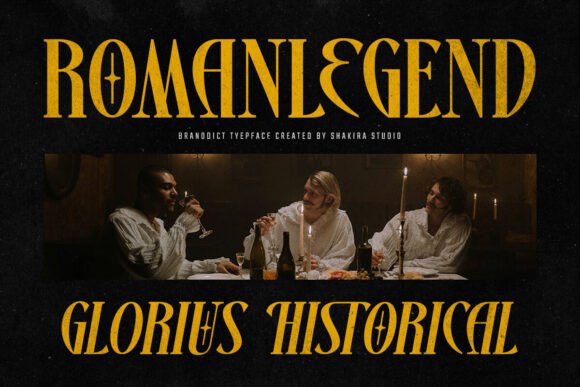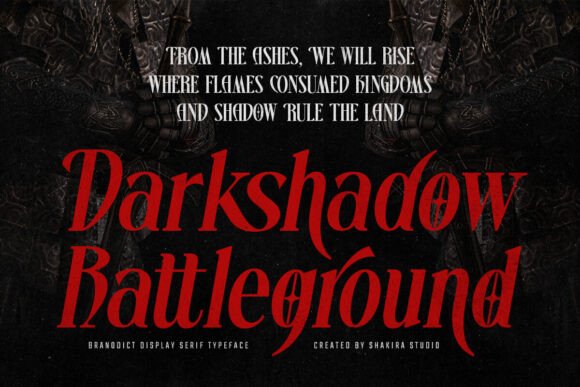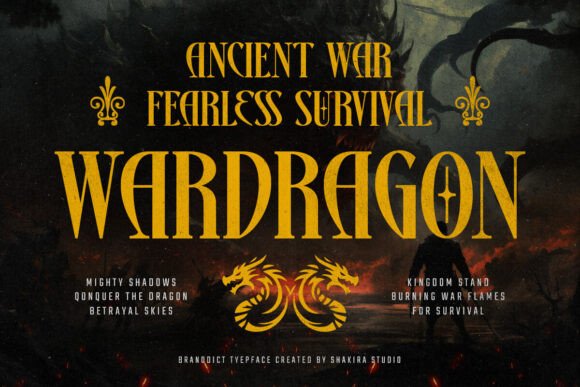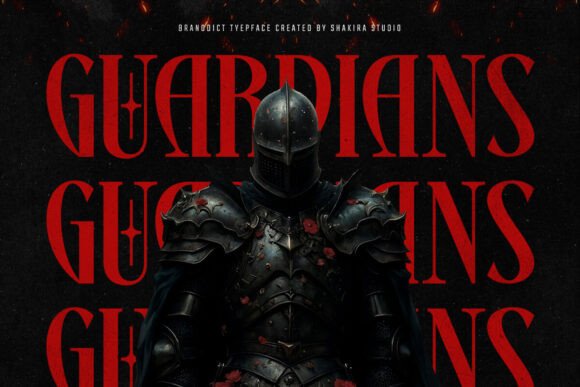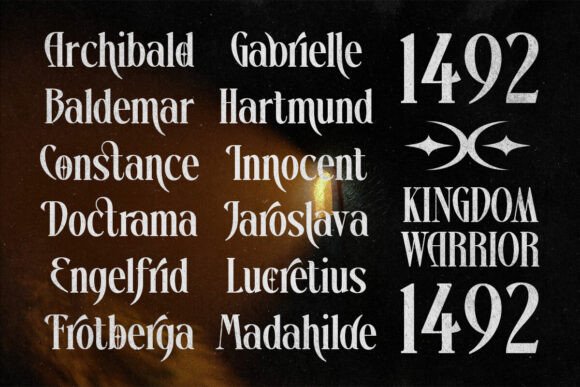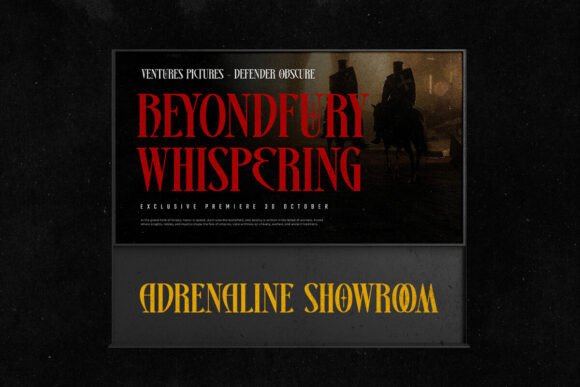
Branodict Font: Elevate Your Brand with Modern Display Serif Elegance
In the realm of typography, a font can make or break the visual identity of a brand. For designers and crafters seeking to create a lasting impression, Branodict Font emerges as a commanding display serif that perfectly balances contemporary sharpness with classic elegance. This versatile typeface is engineered to craft striking logos, memorable branding, and sophisticated packaging designs that exude authority and prestige.
The Essence of Branodict Font
Branodict is more than just a font; it’s a tool for designers to infuse their creations with a sense of modernity and timeless sophistication. Its bold serif structure, coupled with a refined italic variant, offers unparalleled versatility. Whether you’re aiming to create a logo that stands out, a brand identity that resonates, or packaging that captivates, Branodict provides the perfect blend of sharpness and elegance.
Key Features of Branodict Font
- Regular and Italic Versions: Branodict comes in both regular and italic versions, ensuring that you have the flexibility to choose the right style for your design.
- Premium Alternates and Ligatures: The font includes carefully crafted alternates and ligatures, allowing for the creation of distinctive wordmarks with perfect typographic harmony.
- Modern Edge Meets Timeless Sophistication: Branodict’s design merges the sharpness of modern typography with the elegance of classic serif fonts, making it ideal for brands seeking to project both authority and prestige.
Applications of Branodict Font
The versatility of Branodict Font makes it suitable for a wide range of applications, including:
- Logo Design: Create striking and memorable logos that make a lasting impression.
- Branding: Develop a strong brand identity that communicates your values and personality.
- Packaging Design: Elevate your packaging with sophisticated and eye-catching typography.
Why Choose Branodict Font?
In a crowded marketplace, standing out is crucial. Branodict Font offers designers and crafters a unique opportunity to create impactful designs that capture attention and convey a sense of sophistication. Here are a few reasons why Branodict should be your go-to font:
- Versatility: Branodict’s range of styles and features makes it adaptable to various design needs.
- Elegance: The font’s classic serif structure and refined italic variant lend an air of elegance to any design.
- Impact: With Branodict, you can create designs that are not only visually appealing but also memorable and impactful.
Tips for Using Branodict Font Effectively
To maximize the potential of Branodict Font, consider the following tips:
- Experiment with Alternates and Ligatures: Take advantage of the premium alternates and ligatures to add a unique touch to your designs.
- Mix and Match Styles: Combine the regular and italic versions of Branodict to create visual interest and hierarchy in your designs.
- Consider Your Brand Personality: Choose the style and features of Branodict that best align with your brand’s personality and values.
Branodict Font is a powerful tool for designers and crafters looking to elevate their branding, logos, and packaging designs. Its unique blend of modern sharpness and classic elegance, coupled with its versatile features, makes it an ideal choice for creating impactful and memorable designs. By incorporating Branodict into your typography arsenal, you’ll be well on your way to crafting visually stunning and effective designs that leave a lasting impression.